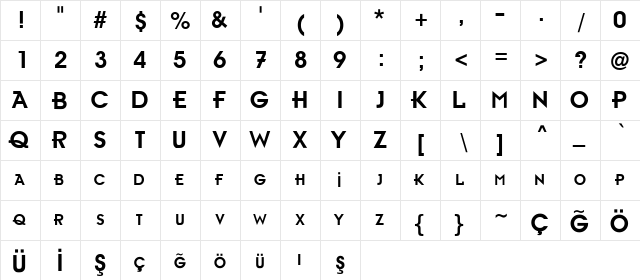
TrSah Ambient Medium
Design Context for TrSah Ambient Typeface
TrSah Ambient is a composed and adaptable typeface that performs quietly and consistently across a wide range of design contexts.